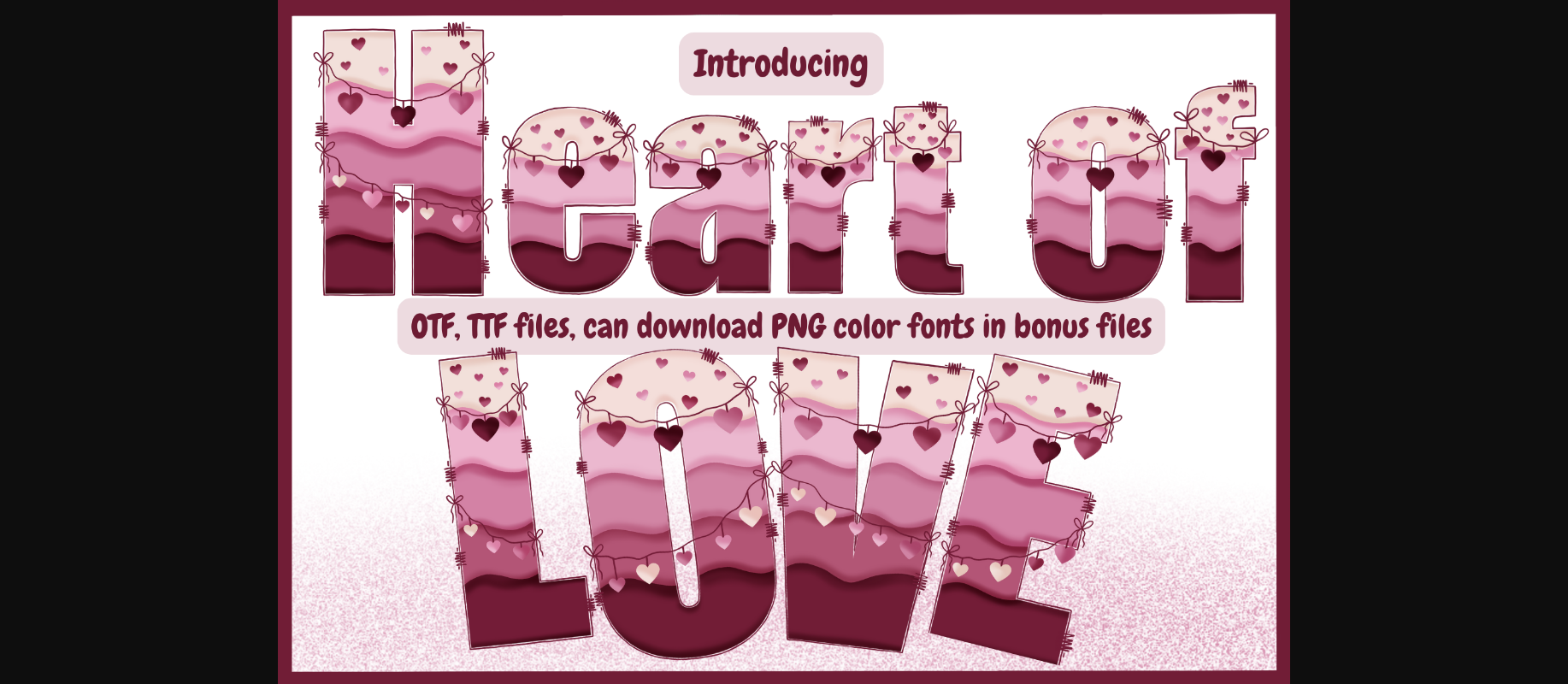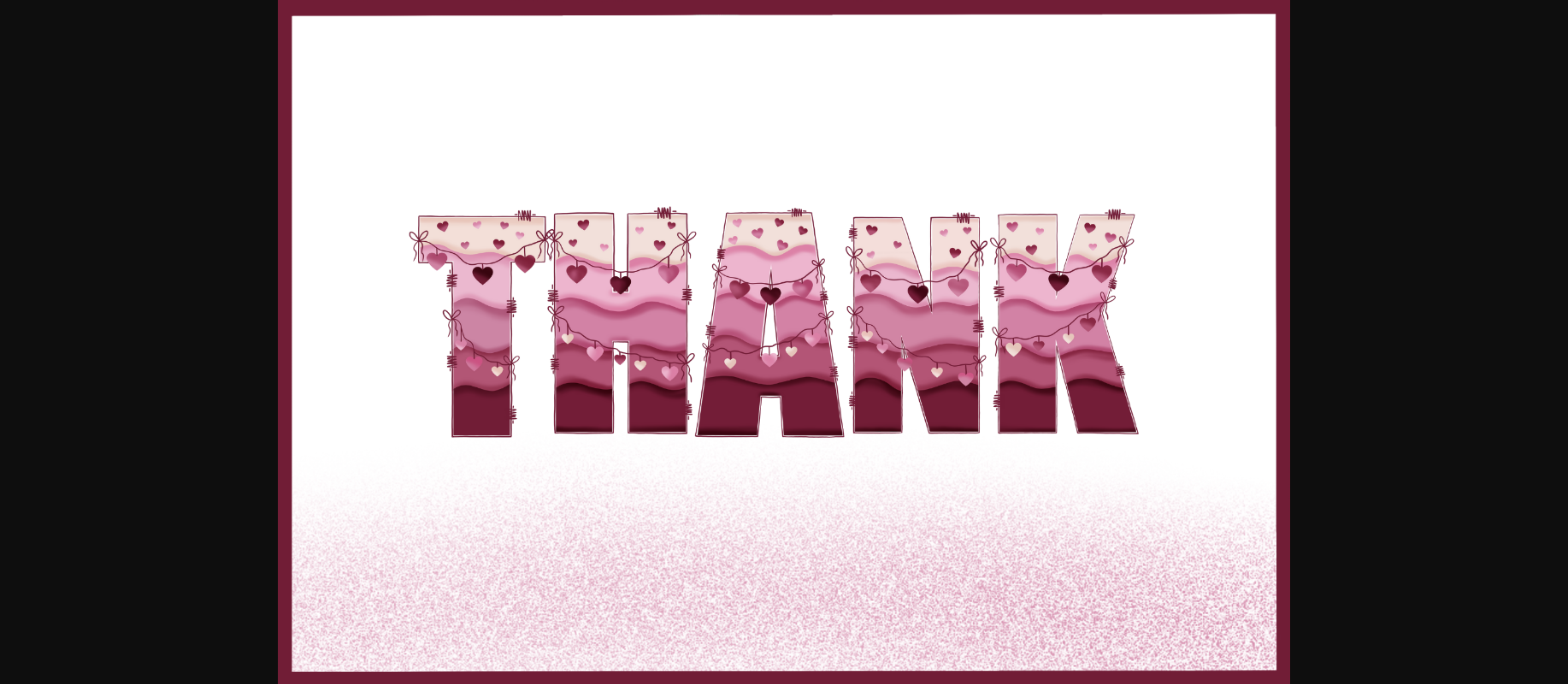
About Heart of Love Font
Introducing “Heart of Love,” a charming decorative font adorned with delightful heart garlands on each letter. This whimsical typeface is perfect for adding a touch of romance and playfulness to your designs. Whether crafting heartfelt messages, creating romantic invitations, or adding a love-themed flair to your projects, Heart of Love brings a sweet and enchanting element to every character. Embrace the love-filled aesthetics and infuse your creations with warmth using this endearing font.